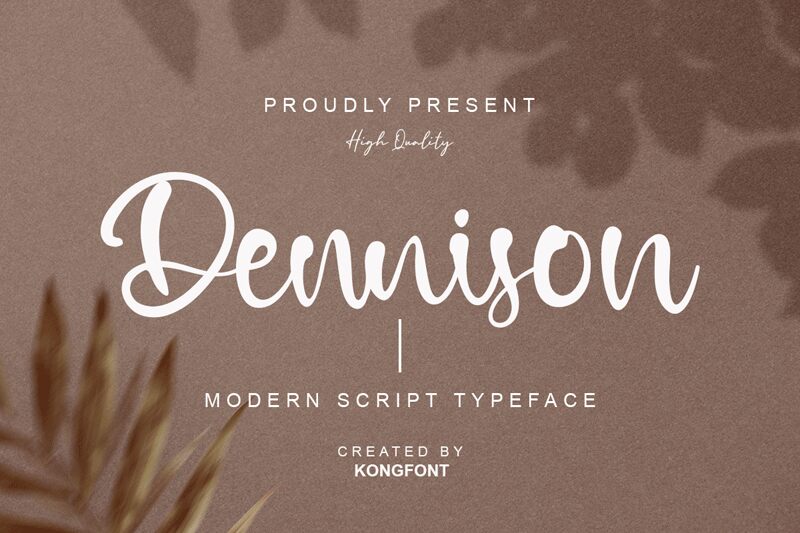
Dennison
Dennison, the modern script font designed by Kong Font, is the perfect choice for those who want to make a statement with their typography. With its bold and fluid strokes, this semi-bold font adds a touch of elegance to any project. Its unique style makes it suitable for various design projects such as wedding invitations, logos, packaging designs, and social media posts. The Dennison font's narrow width and flowing curves make it ideal for creating eye-catching headlines or accent text that stands out in any design. Elevate your project with Dennison's contemporary vibe and showcase your creativity with this stunning typeface.